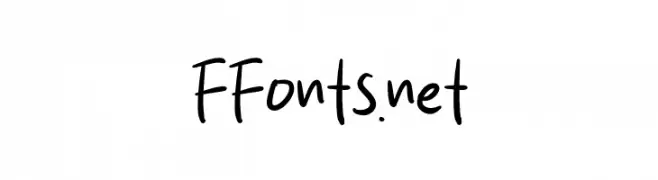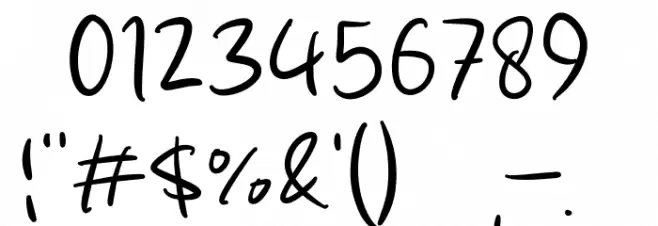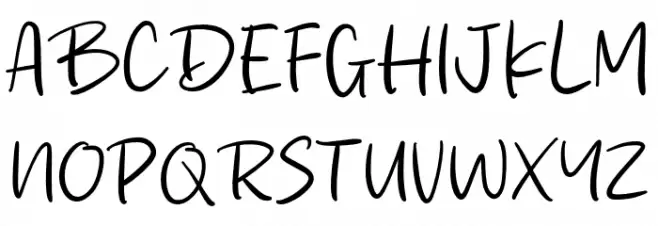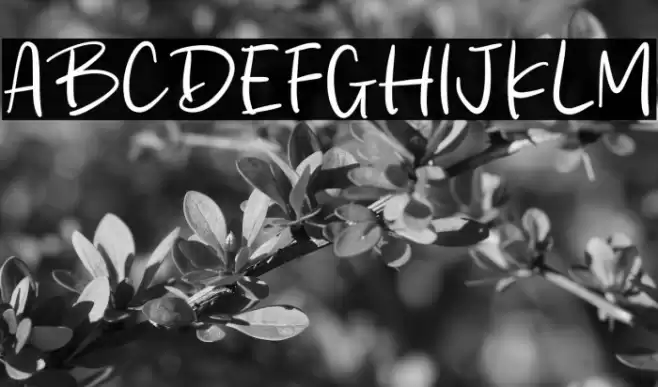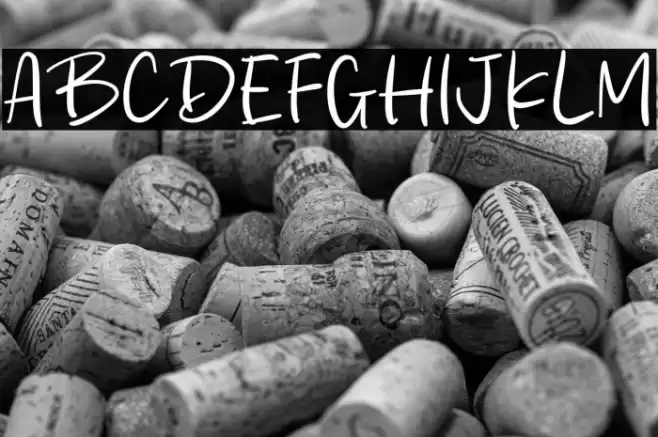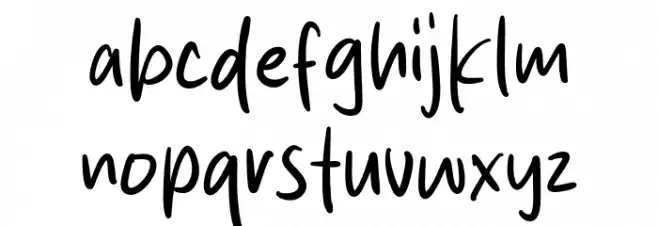
Oaty Milk Font
Oaty Milk Description
A casual, handwritten script font with a playful and informal style, featuring slightly irregular strokes and a smooth flow.
| Overall Style | Casual, Friendly, Informal |
| Use Case | Headlines, Body text, Logos, Personal projects |